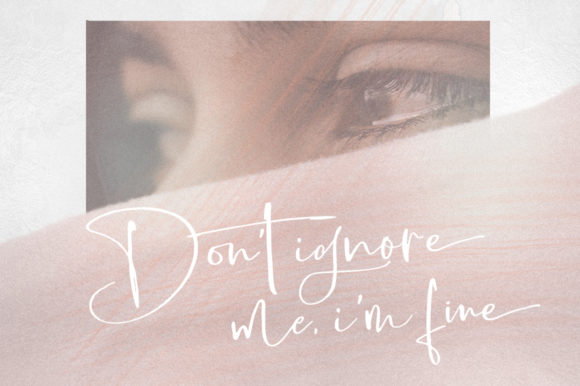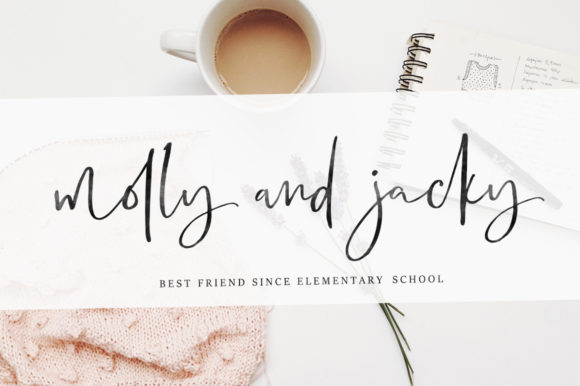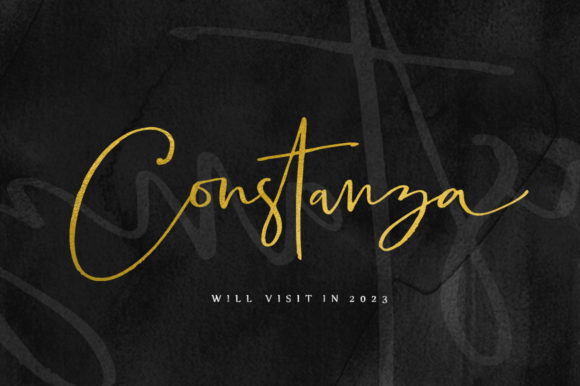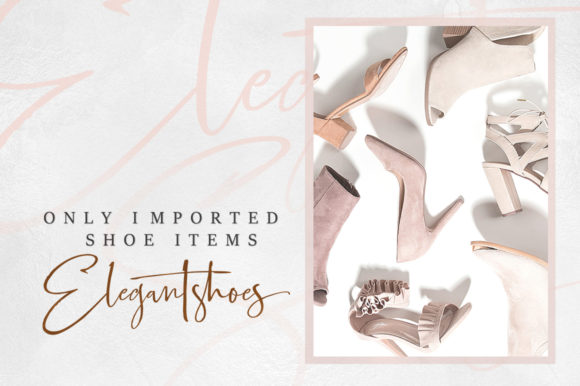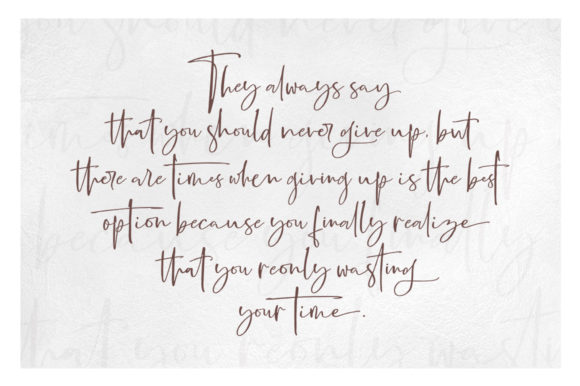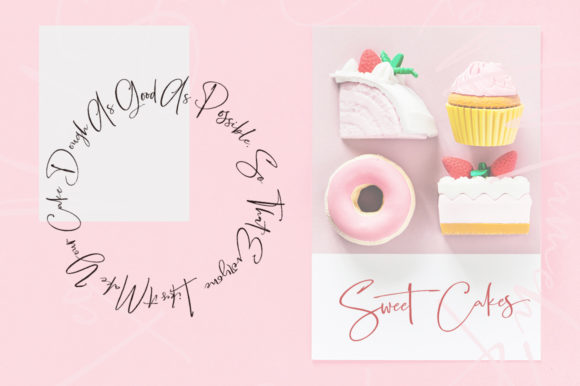
Introducing Boisterous Script Font: Elevate Your Designs with Elegance and Sophistication
In the world of typography, a well-chosen font can make all the difference in transforming a design from ordinary to extraordinary. For designers and crafters seeking to infuse their projects with a touch of luxury and modernity, the Boisterous Script Font is an exceptional choice. This fashionable and elegant handwriting font is designed to add a sophisticated flair to a wide range of design applications, from branding and logos to invitations, packaging, and more.
The Signature Style of Boisterous Script Font
The Boisterous Script Font boasts a signature style that seamlessly blends traditional elegance with a modern touch. Its fluid strokes and carefully crafted letterforms exude a sense of refinement and poise, making it perfect for projects that demand a high level of sophistication. Whether you’re creating a logo, designing a business card, or crafting an invitation, this font is sure to leave a lasting impression.
One of the standout features of the Boisterous Script Font is its versatility. This font is not limited to a specific design application; rather, it can be used across a broad spectrum of projects, including:
- Branding: Establish your brand identity with a unique and memorable font that sets you apart from the competition.
- Logos: Create a lasting impression with a logo that exudes elegance and sophistication.
- Business Cards: Make a statement with a business card that showcases your professionalism and style.
- Posters: Grab attention with a poster that combines bold visuals with the luxurious feel of the Boisterous Script Font.
- Invitations: Set the tone for a special event with an invitation that exudes refinement and luxury.
- Greeting Cards: Add a personal touch to your greeting cards with a font that feels both modern and timeless.
- News and Blog Posters: Elevate your digital content with a font that adds a touch of elegance to your blog posts and news articles.
- Product Packaging: Stand out on store shelves with packaging that features a sophisticated and modern font.
Why Choose Boisterous Script Font?
With so many fonts available, why choose the Boisterous Script Font for your next project? Here are a few compelling reasons:
- Unique Style: The Boisterous Script Font offers a distinctive style that will set your designs apart from the crowd.
- Elegance and Sophistication: This font exudes a sense of luxury and refinement, making it perfect for high-end projects.
- Modern Touch: The Boisterous Script Font combines traditional elegance with a modern twist, ensuring your designs feel both current and timeless.
- Easy to Read: Despite its elegant and sophisticated feel, this font remains highly legible, making it suitable for a wide range of applications.
Tips for Using Boisterous Script Font
To get the most out of the Boisterous Script Font, consider the following tips:
- Pair with Simplicity: Allow the Boisterous Script Font to be the focal point of your design by pairing it with simpler fonts or backgrounds.
- Experiment with Sizes: Play with different font sizes to create visual hierarchy and emphasize key elements of your design.
- Use in Moderation: While the Boisterous Script Font is elegant and sophisticated, using it in moderation can help maintain its impact.
The Boisterous Script Font is a versatile and elegant handwriting font that can elevate a wide range of design projects. Its unique blend of traditional sophistication and modern flair makes it an excellent choice for designers and crafters seeking to add a touch of luxury to their work. Whether you’re creating branding materials, logos, invitations, or product packaging, this font is sure to make a lasting impression.
Discover the power of the Boisterous Script Font and take your designs to the next level with its refined elegance and modern sophistication.